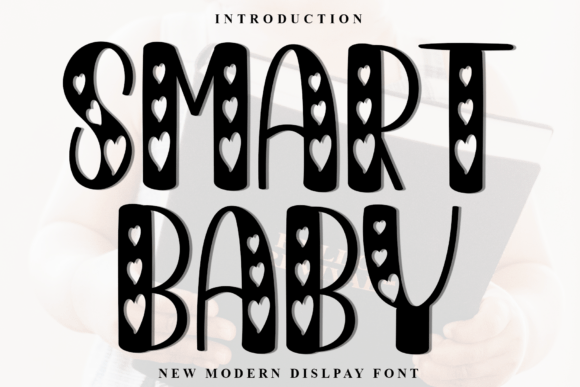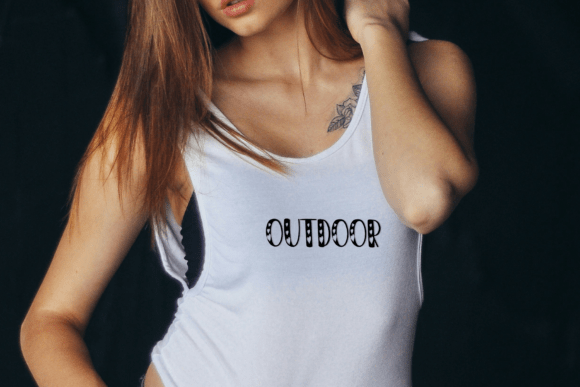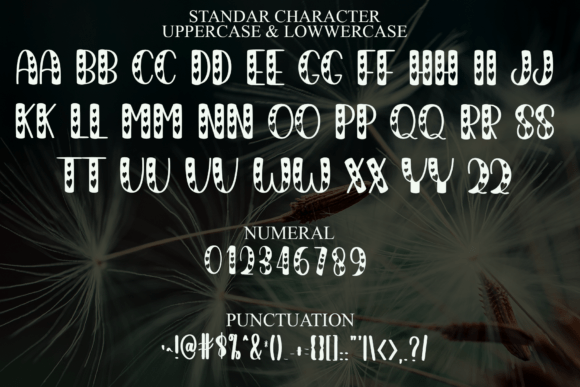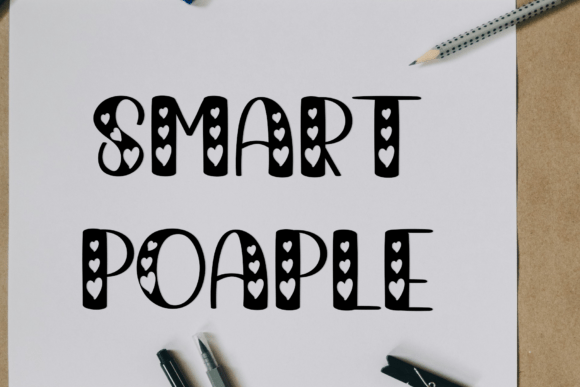
Smart Baby Font
About the Smart Baby Font
Meet Smart Baby Font, a stunning font that brings a touch of elegance and professionalism to any design. Smart Baby is a casual and creative font that exudes warmth and friendliness. Its round, playful strokes create a relaxed and approachable feel, perfect for personal projects, invitations, and social media graphics. The font’s charming, hand-drawn aesthetic adds a fun and unique touch to any design.